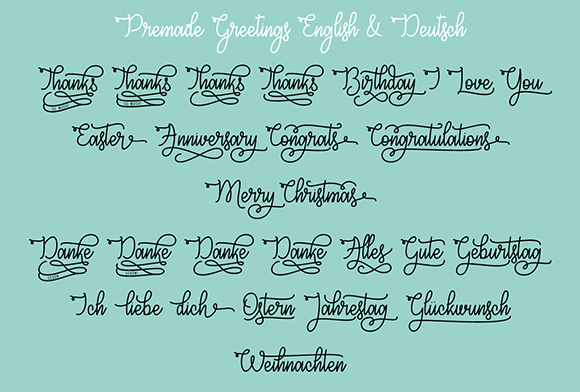
Congrats Script Font: Elevate Your Craft and Design Projects with Elegance
Congrats Script is an elegant monoline script that is perfect for your craft and design projects! This beautiful font is designed to add a touch of sophistication and style to any creative endeavor. In this article, we’ll explore the features and benefits of Congrats Script Font, and how it can elevate your designs to the next level.
What is Congrats Script Font?
Congrats Script Font is a monoline script font that features smooth, flowing lines and a elegant aesthetic. Its sleek and modern design makes it perfect for a variety of craft and design projects, from invitations and greeting cards to branding and packaging. The font is highly versatile and can be used for both personal and commercial projects.
Key Features of Congrats Script Font
- Elegant Monoline Design: Congrats Script Font features a sleek and modern monoline design that is perfect for adding a touch of sophistication to your designs.
- Highly Versatile: The font is highly versatile and can be used for a variety of craft and design projects, from invitations and greeting cards to branding and packaging.
- Easy to Read: Despite its elegant design, Congrats Script Font is highly legible and easy to read, making it perfect for use in both digital and print designs.
- Scalable: The font is highly scalable and can be used at a variety of sizes, from small captions to large headings.
Benefits of Using Congrats Script Font
There are many benefits to using Congrats Script Font in your craft and design projects. Here are just a few:
- Adds Elegance and Sophistication: Congrats Script Font adds a touch of elegance and sophistication to any design, making it perfect for special occasions and high-end branding.
- Stand Out from the Crowd: The font’s unique and stylish design helps your projects stand out from the crowd and grab attention.
- Perfect for Branding: Congrats Script Font is perfect for use in branding and packaging, helping to create a cohesive and stylish visual identity for your business or product.
- Easy to Pair with Other Fonts: The font pairs well with a variety of other fonts, making it easy to create a unique and stylish typography scheme.
Using Congrats Script Font in Your Design Projects
Congrats Script Font is easy to use and can be incorporated into a variety of design projects. Here are a few ideas to get you started:
- Invitations and Greeting Cards: Use Congrats Script Font to create beautiful and elegant invitations and greeting cards for special occasions.
- Branding and Packaging: Use the font to create a cohesive and stylish visual identity for your business or product.
- Digital Designs: Use Congrats Script Font in digital designs, such as social media graphics, blog posts, and email newsletters.
- Print Designs: Use the font in print designs, such as brochures, flyers, and posters.
Tips for Getting the Most Out of Congrats Script Font
Here are a few tips for getting the most out of Congrats Script Font:
- Experiment with Different Sizes and Colors: Experiment with different sizes and colors to find the perfect combination for your design.
- Pair with Other Fonts: Pair Congrats Script Font with other fonts to create a unique and stylish typography scheme.
- Use in Combination with Images: Use the font in combination with images to create a visually appealing design.